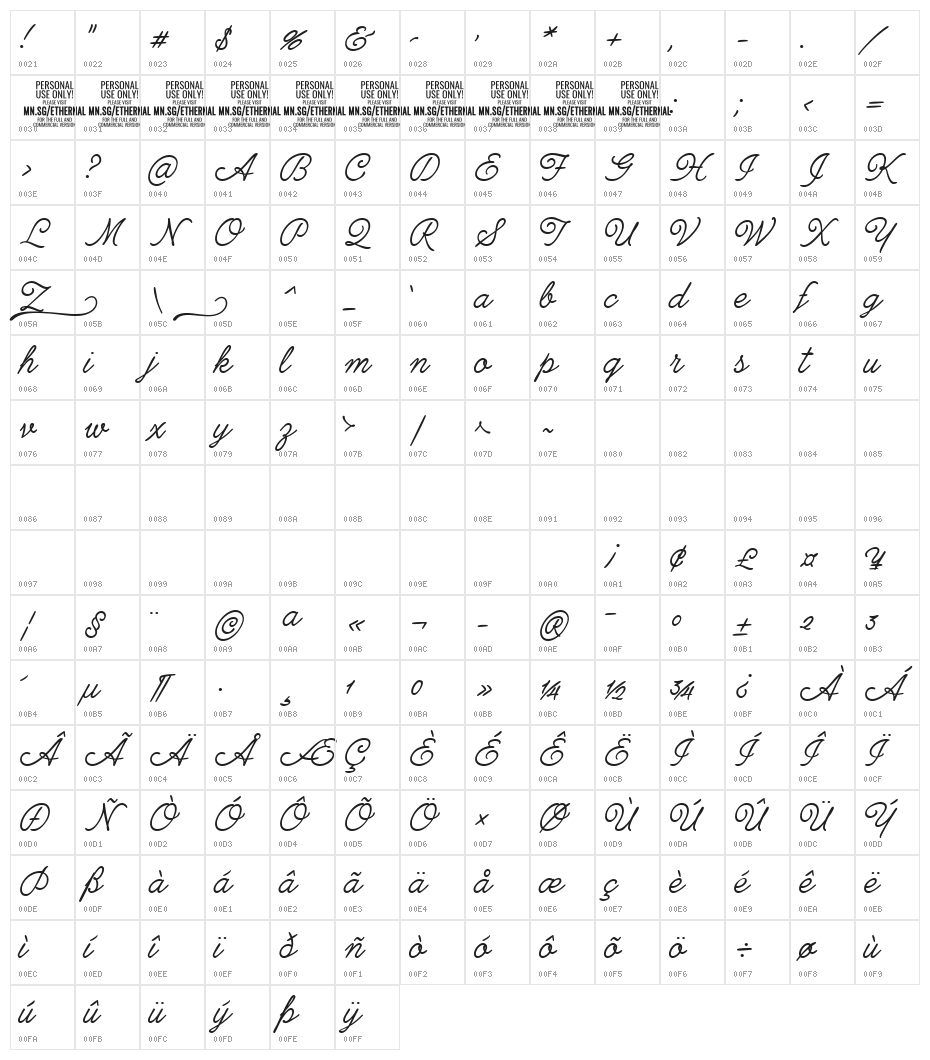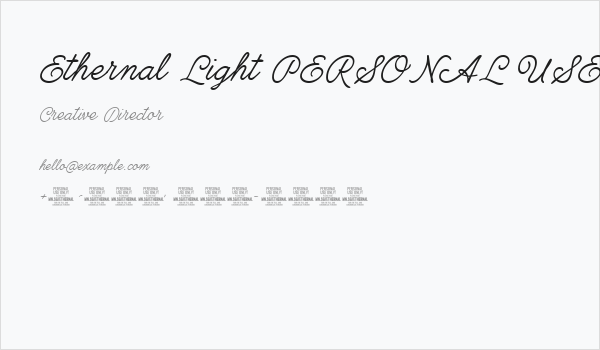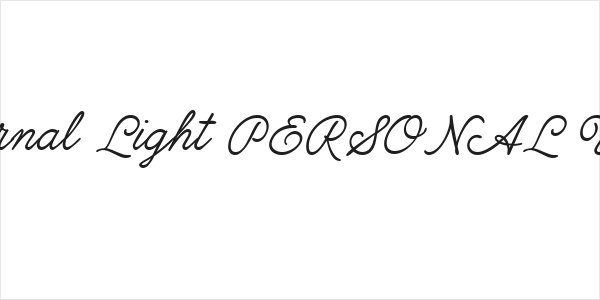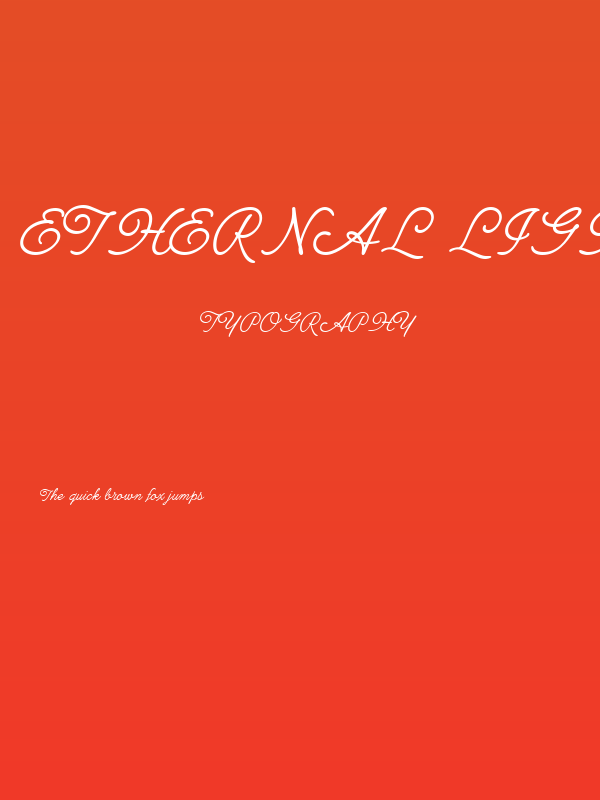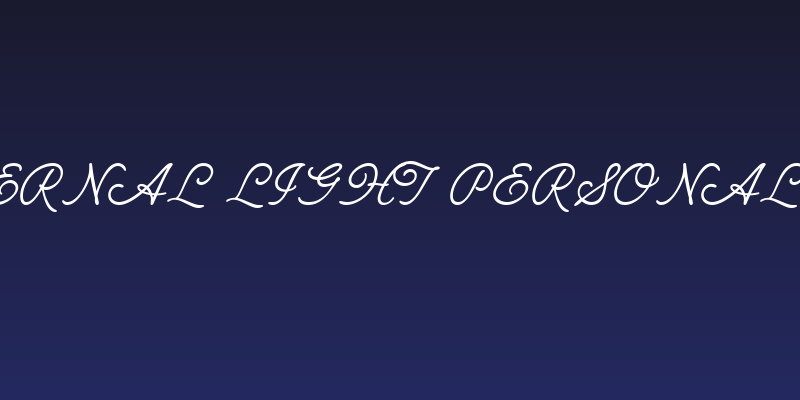
Ethernal Light PERSONAL USE Font
Ethernal Light PERSONAL USE Description
This elegant script font features flowing, cursive letterforms that exude a sense of sophistication and grace. The uppercase letters are slightly more ornate, with gentle curves and loops, while the lowercase letters maintain a smooth, connected style that enhances readability. The font's overall design is reminiscent of classic calligraphy, making it suitable for formal and decorative purposes. The numerals and special characters are crafted with the same attention to detail, ensuring consistency throughout. This font is ideal for projects that require a touch of elegance and refinement.
| Proposed Projects | Wedding invitations, luxury branding, elegant stationery, formal event programs, and decorative signage. |